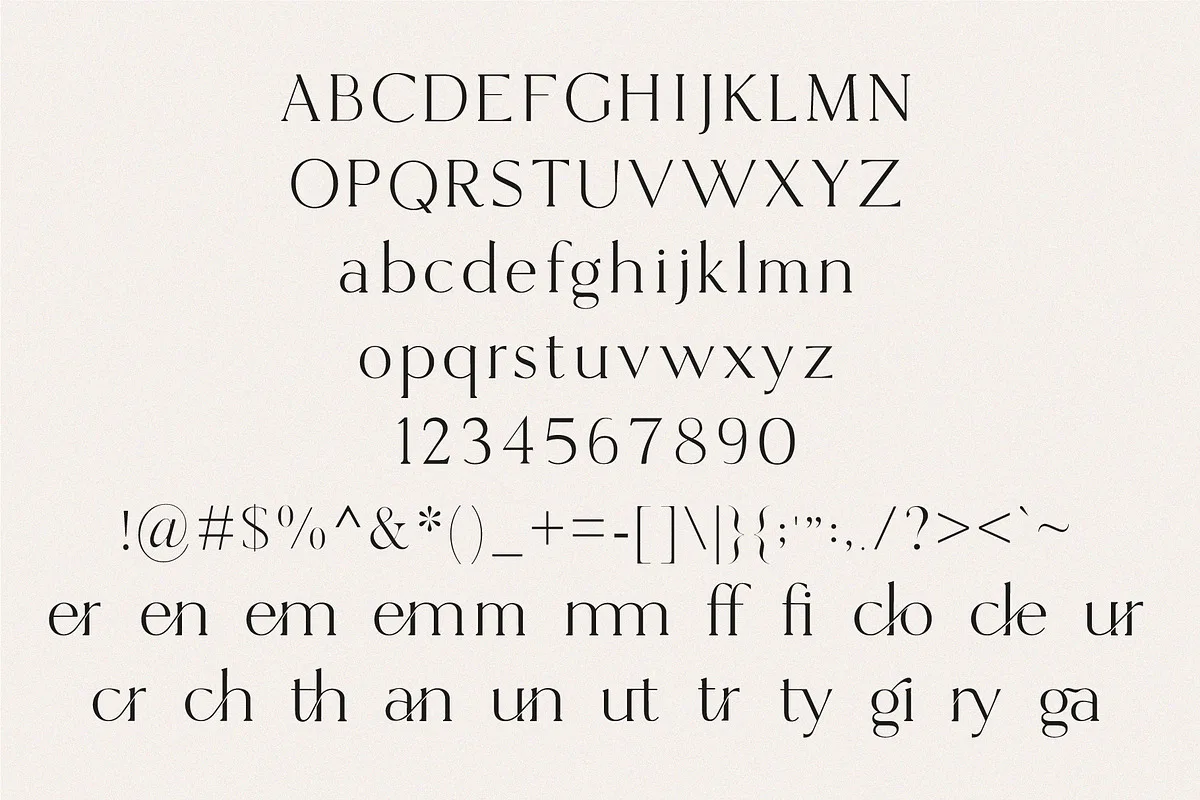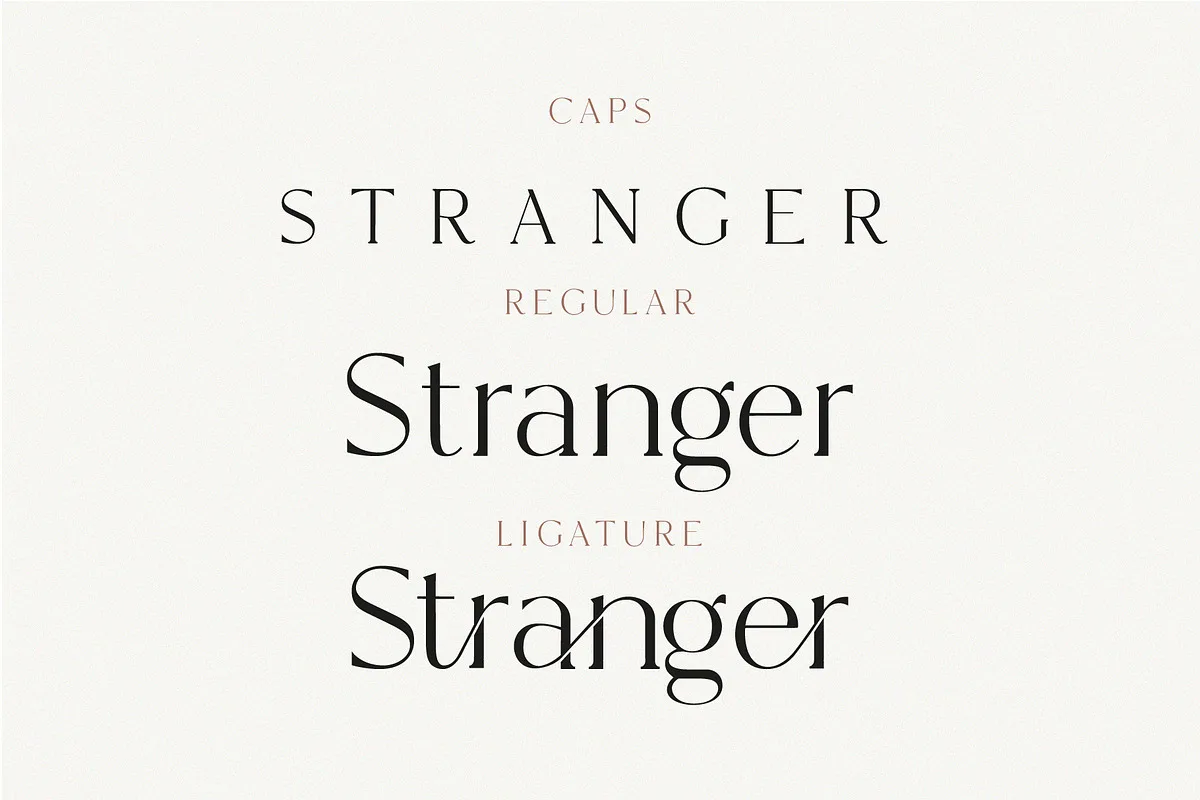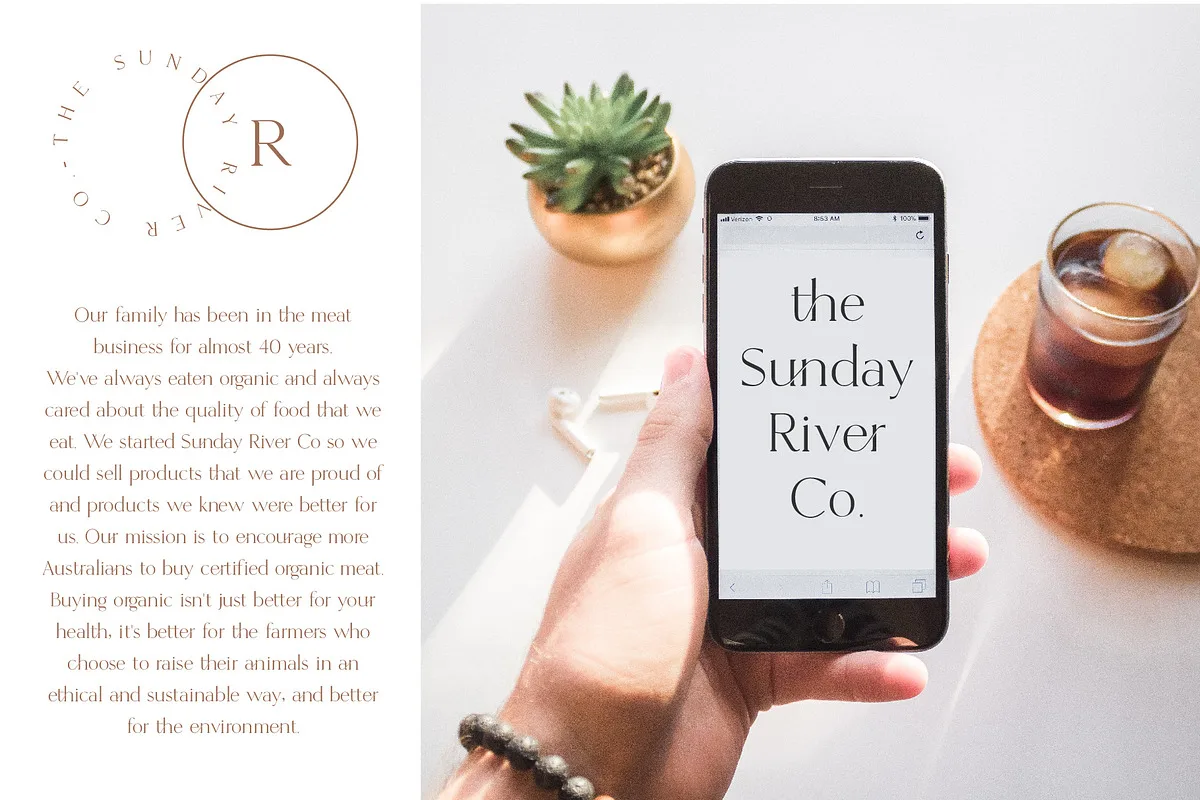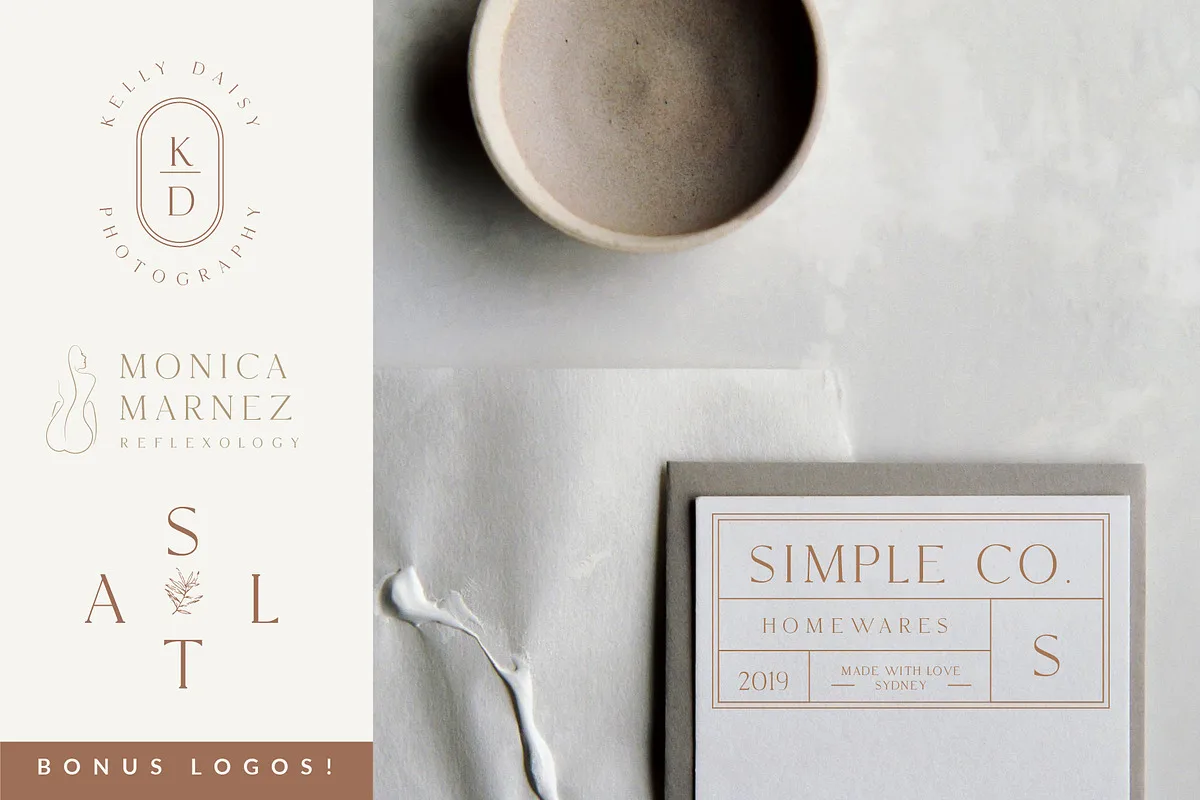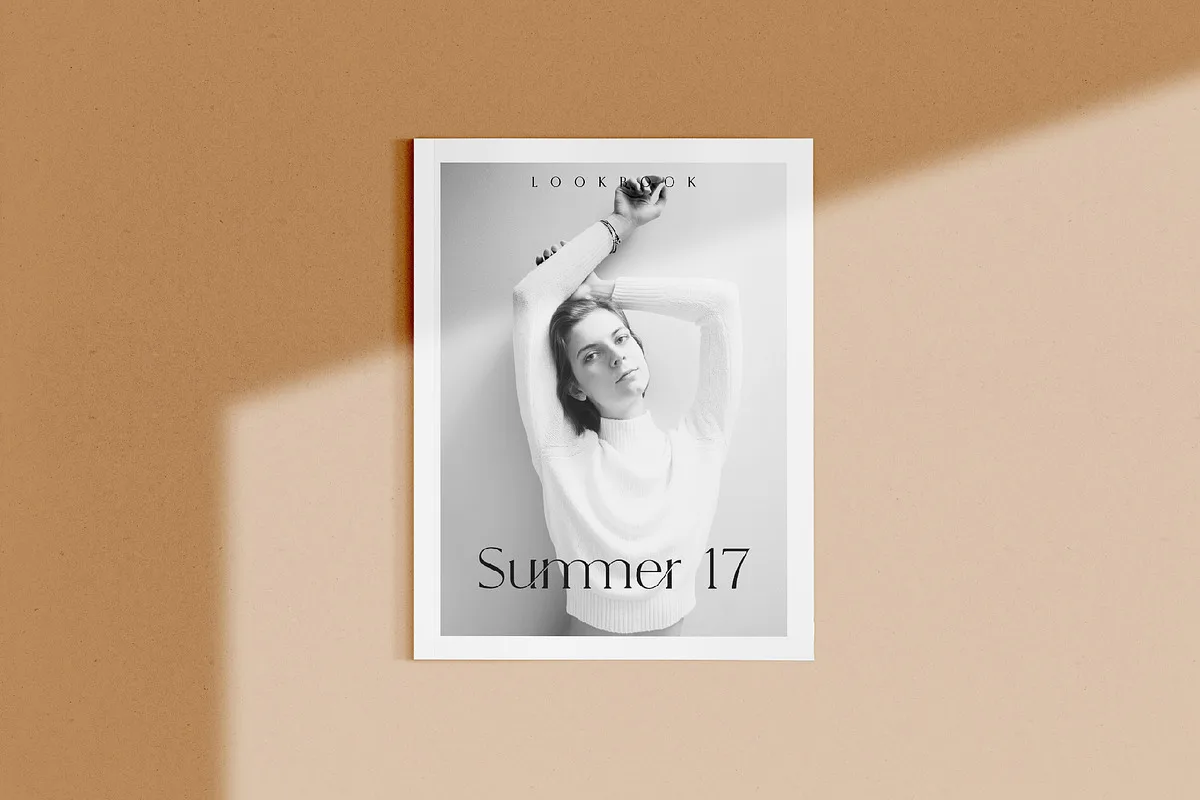
Hunter is a ligature serif font. It is an elegant, unique font that uses ligatures to smoothly link letters. Perfect for adding a unique twist to word-mark logos, monograms or pull quotes.
the fon has 20 ligatures as well as numbers and punctuation making it super versatile. Ligatures can be turned off if needed for body copy.